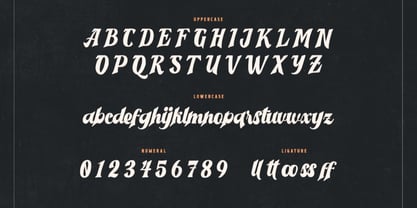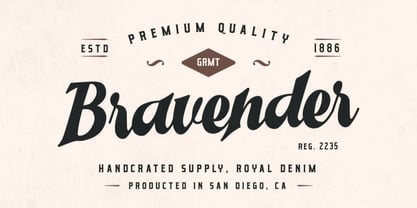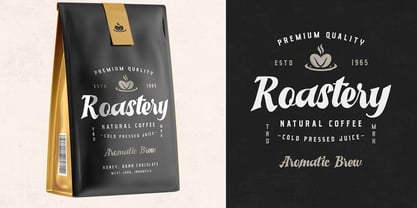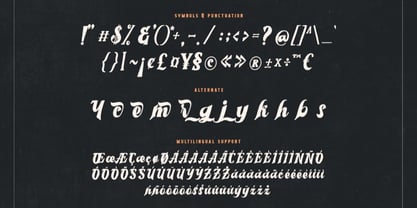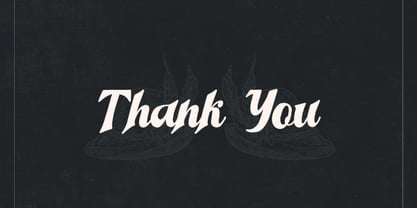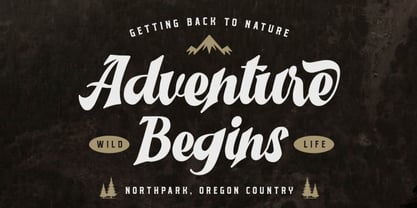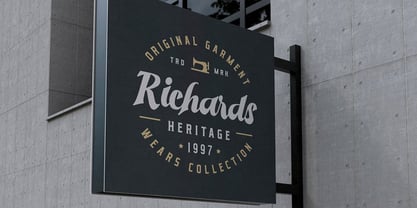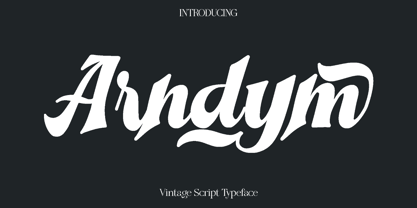
Arndym
by Only Fonts
The Arndym Font Family was designed by Olivia Love and published by Only Fonts. Arndym contains 1 styles. More about this family
Arndym – Unique Vintage Script Font Arndym is a charming vintage script font that beautifully captures the warmth and nostalgia of classic hand lettering while offering modern versatility. Its flowing, elegant curves and playful ligatures create a natural, handcrafted feel that infuses personality and style into any project. Designed to evoke emotion, Arndym makes each word feel personal, expressive, and visually captivating. This font excels in a wide range of creative applications, making it perfect for wedding invitations, boutique branding, restaurant menus, retro stationery, social media graphics, packaging, logos, posters, inspirational quotes, and lifestyle or workshop materials. Its balanced letterforms ensure readability while maintaining a stylish, artistic flair. Arndym empowers designers to create both subtle elegance and bold, eye-catching compositions with ease. Featuring a rich set of options, Arndym includes uppercase and lowercase letters, numerals, symbols, punctuation, ligatures, and alternate characters, providing flexibility for every creative endeavor. Its multilingual support ensures your designs communicate beautifully across languages, making it a truly versatile script font for designers looking to add personality, nostalgia, and charm to their work. Arndym Vintage Script Font Features: • Uppercase and lowercase characters • Numerals, punctuation, and symbols • Ligatures and alternate characters for creative variety • Multilingual support Arndym brings warmth, character, and timeless charm to every design, making it an essential addition to your creative toolkit.
Designers: Olivia Love
Foundry: Only Fonts